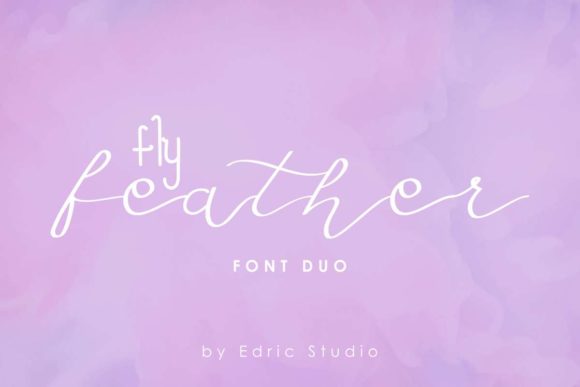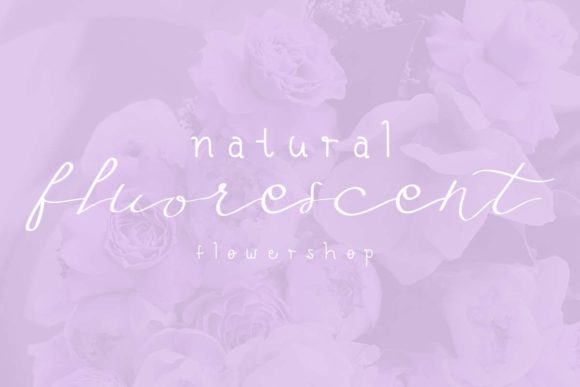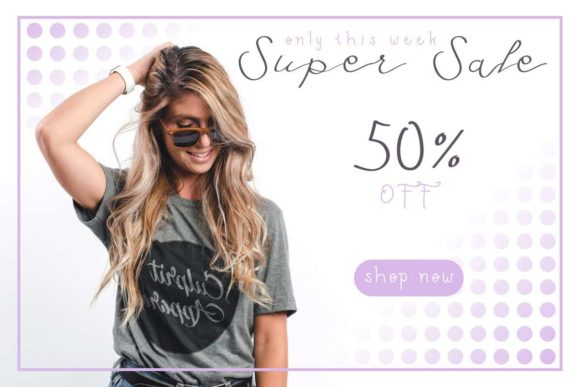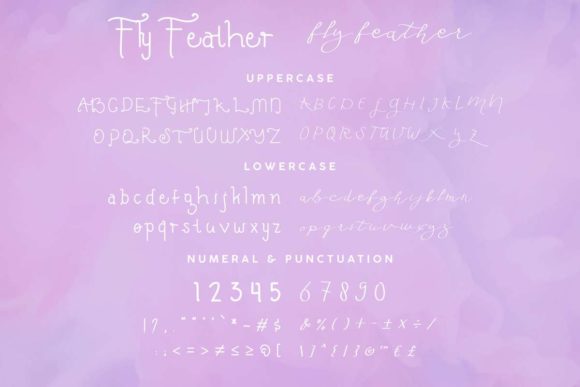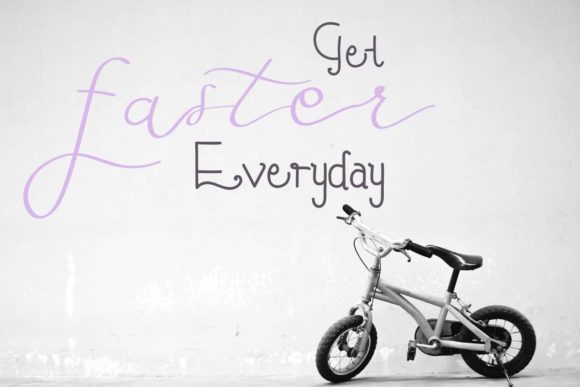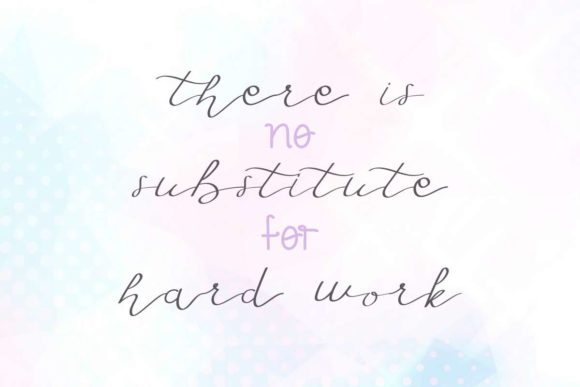
Elevate Your Designs with the Fly Feather Duo Font
Are you looking for a font that can add a touch of heavenliness and majesty to your design projects? Look no further than the Fly Feather Duo Font! This stunning font duo is designed to give your designs a gorgeously light feel, elevating them to the highest level. In this article, we’ll dive into the features and benefits of the Fly Feather Duo Font, and explore how you can use it to take your designs to new heights.
What is the Fly Feather Duo Font?
The Fly Feather Duo Font is a carefully crafted font duo that consists of two complementary fonts, designed to work together in harmony. The fonts are created with a focus on elegance, sophistication, and versatility, making them perfect for a wide range of design projects. Whether you’re a designer, crafter, or DIY enthusiast, this font duo is sure to become a valuable addition to your toolkit.
Key Features of the Fly Feather Duo Font
- Heavenly and Majestic Feel: The Fly Feather Duo Font has a unique, light feel that gives your designs a sense of elegance and sophistication.
- Versatility: This font duo is perfect for a wide range of design projects, from crafting and DIY projects to commercial designs and branding.
- Complementary Fonts: The two fonts in the duo are carefully designed to work together, creating a harmonious and cohesive look.
- Elegant and Sophisticated: The fonts feature elegant lines, curves, and swashes, making them perfect for designs that require a touch of luxury and refinement.
Benefits of Using the Fly Feather Duo Font
So, why should you choose the Fly Feather Duo Font for your design projects? Here are just a few benefits of using this amazing font duo:
- Instantly Elevate Your Designs: With the Fly Feather Duo Font, you can instantly add a touch of elegance and sophistication to your designs, taking them to the next level.
- Save Time and Effort: The font duo is designed to be easy to use, saving you time and effort in the design process.
- Stand Out from the Crowd: The unique and distinctive style of the Fly Feather Duo Font will help your designs stand out from the crowd, grabbing attention and making a lasting impression.
How to Use the Fly Feather Duo Font
Using the Fly Feather Duo Font is easy! Here are a few tips to get you started:
- Pair the Fonts: Use the two fonts together to create a harmonious and cohesive look.
- Experiment with Different Sizes and Colors: Play around with different sizes and colors to find the perfect combination for your design.
- Add Swashes and Flourishes: Use the font’s built-in swashes and flourishes to add a touch of elegance and sophistication to your designs.
The Fly Feather Duo Font is perfect for designers and crafters who want to add a touch of elegance and sophistication to their projects. Whether you’re creating:
- Digital Designs: Use the font to create stunning digital designs, from social media graphics to website headers.
- Print Designs: Use the font to create beautiful print designs, from business cards to brochures.
- Crafting Projects: Use the font to add a personal touch to your crafting projects, from scrapbooking to card making.
In conclusion, the Fly Feather Duo Font is a must-have for designers and crafters who want to elevate their designs to the highest level. With its heavenly and majestic feel, versatility, and elegant style, this font duo is perfect for a wide range of design projects. So why wait? Download the Fly Feather Duo Font today and start creating stunning designs that will leave a lasting impression!